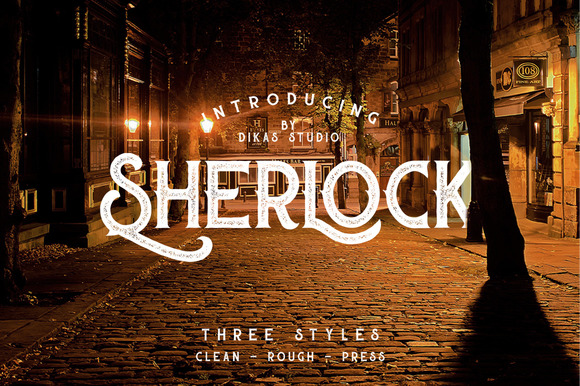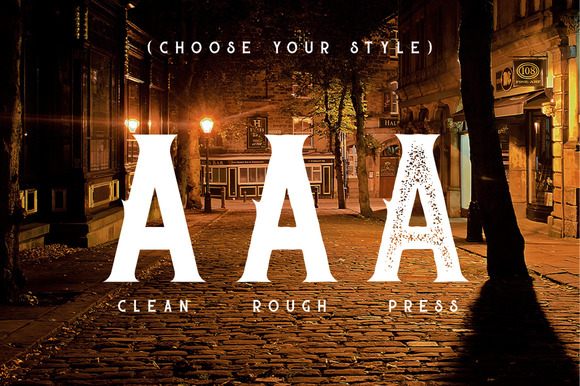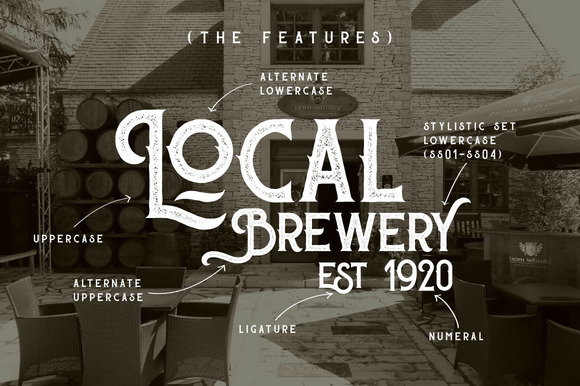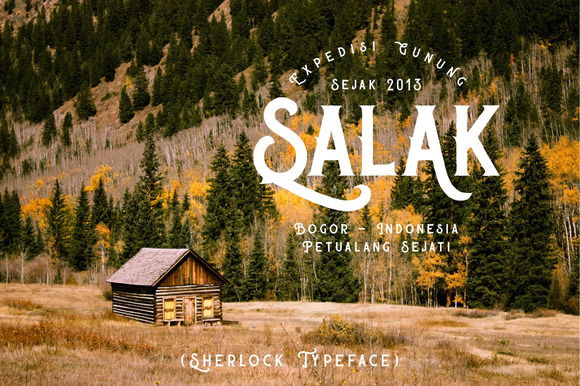
Sherlock Font
About the Sherlock Font
Get ready to be inspired by Sherlock Font, a fresh and dynamic typeface for modern creators. Sherlock is a decorative font with a vintage look & feel.
The Sherlock font comes in 3 variations:
Sherlock Regular
Sherlock Press
Sherlock Rough
Sherlock Font Usage Examples